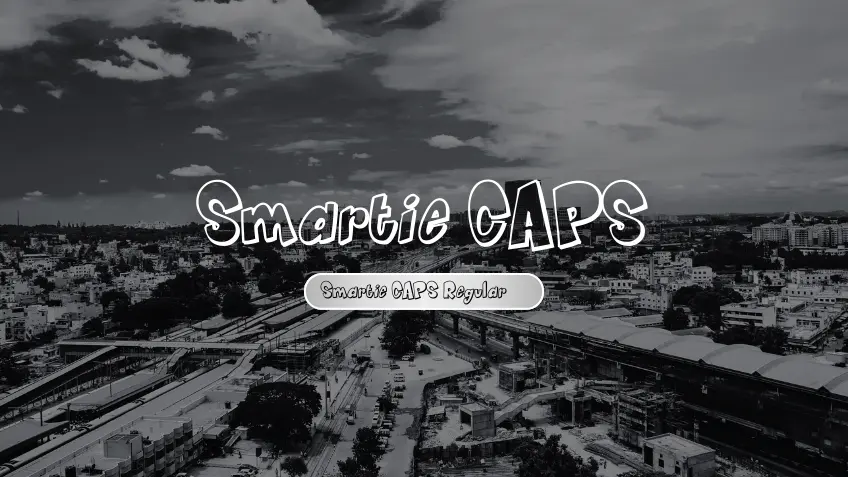
The font Smartie CAPS Regular, designed by Keith Bates, falls under the Display, Sans Serif category & Smartie CAPS font family. Its smooth, flowing letterforms make it a versatile choice for projects that require both elegance and readability. Smartie CAPS is particularly well-suited for Branding, Headlines, Creative Projects, Display and Themed designs. With its balance of simplicity and decorative appeal, this font brings a polished touch to both personal and professional designs.